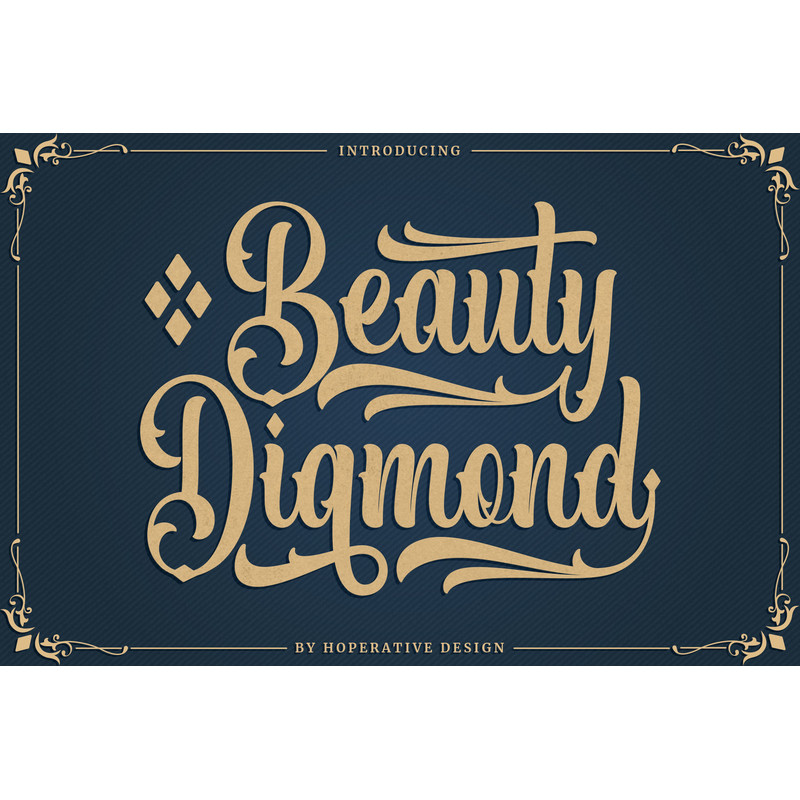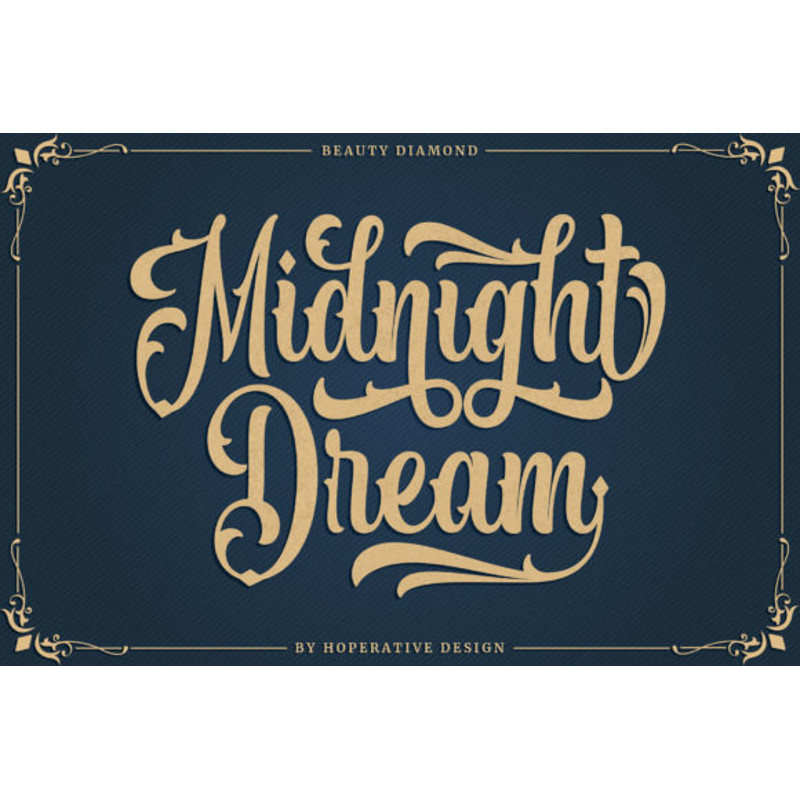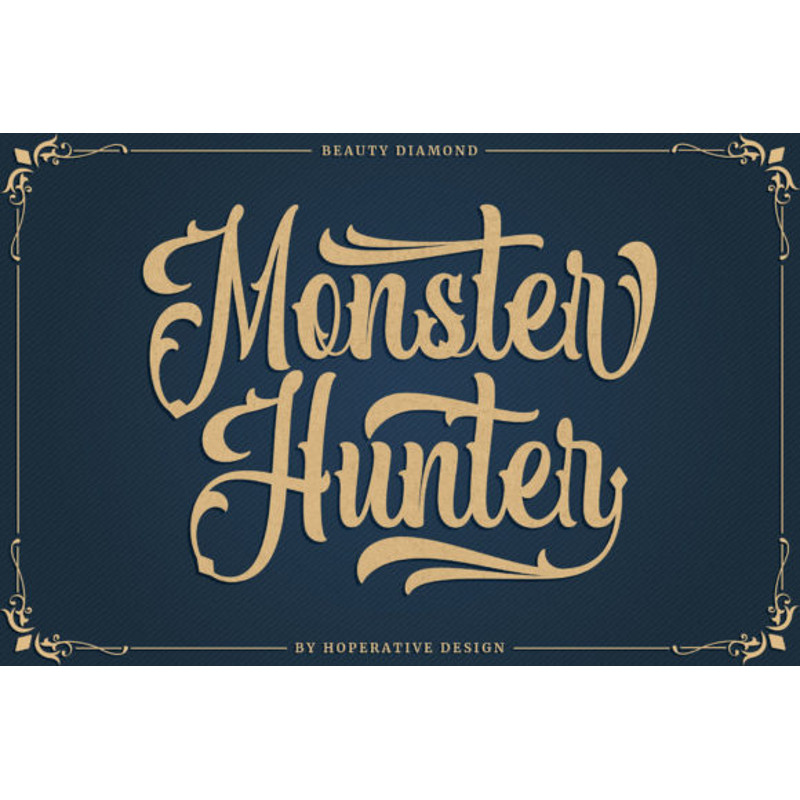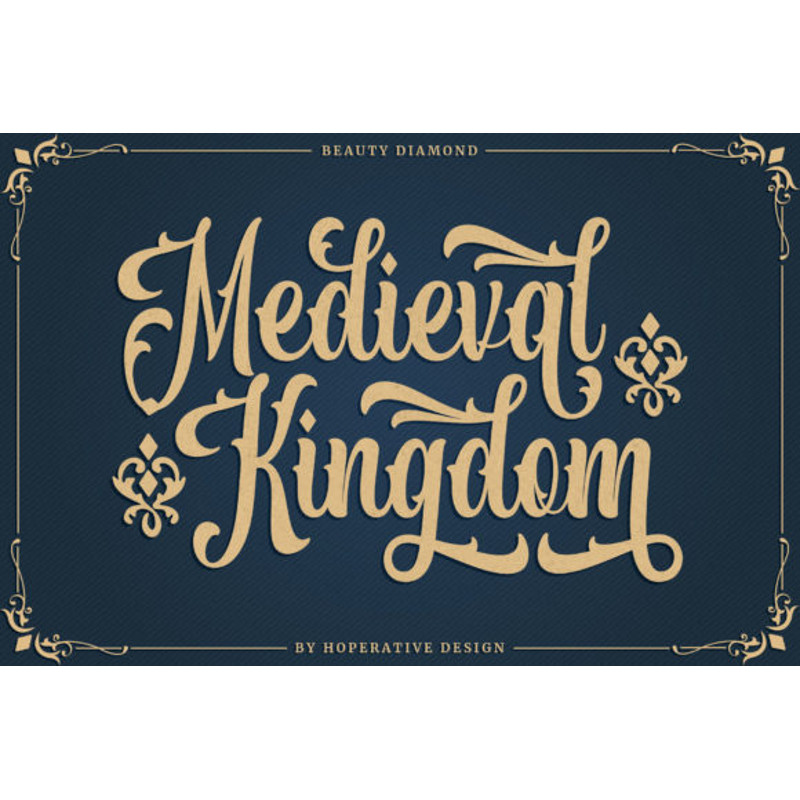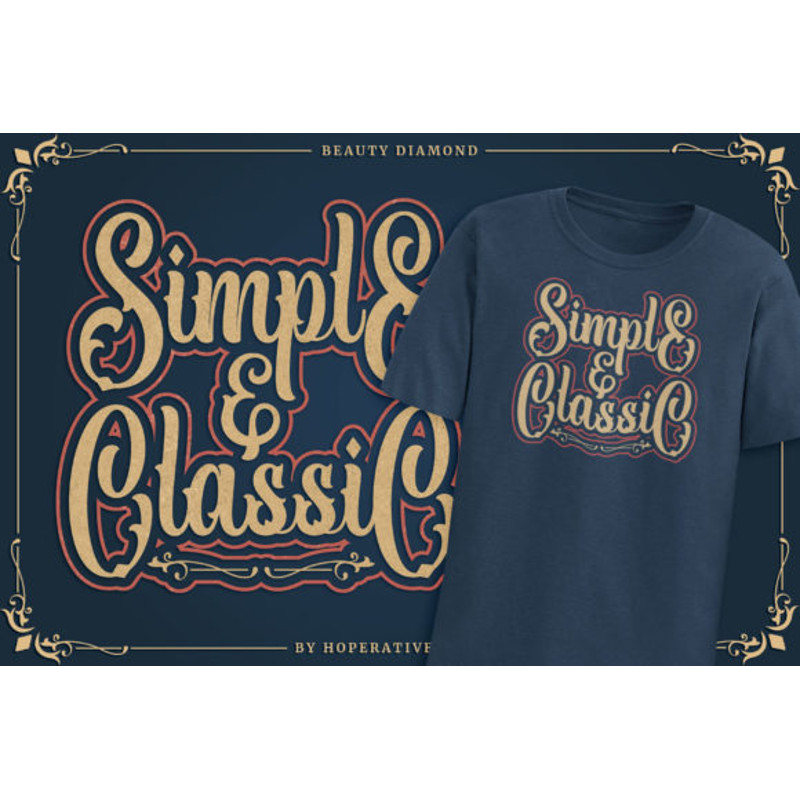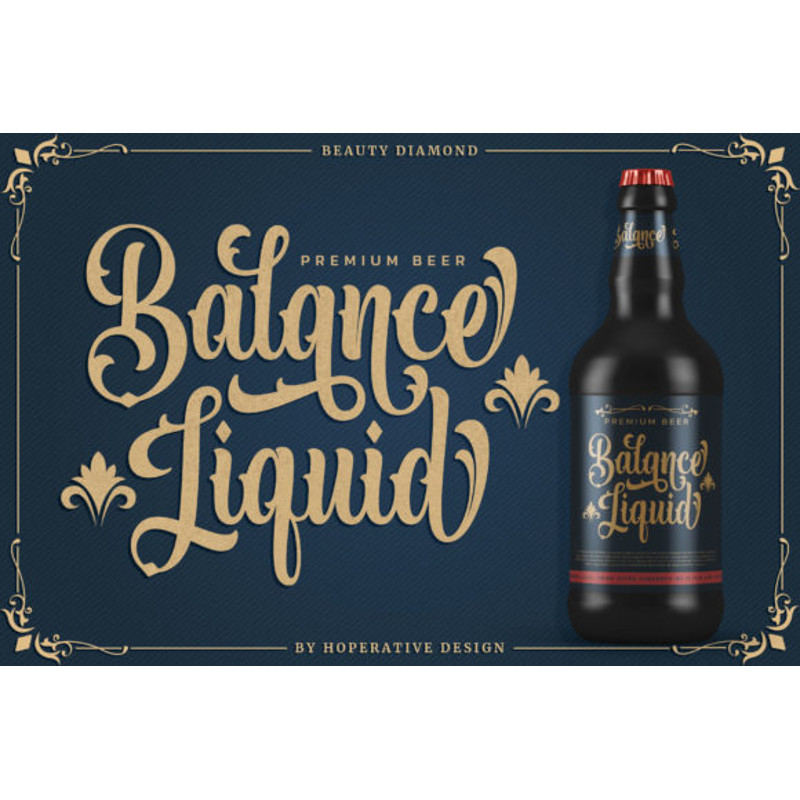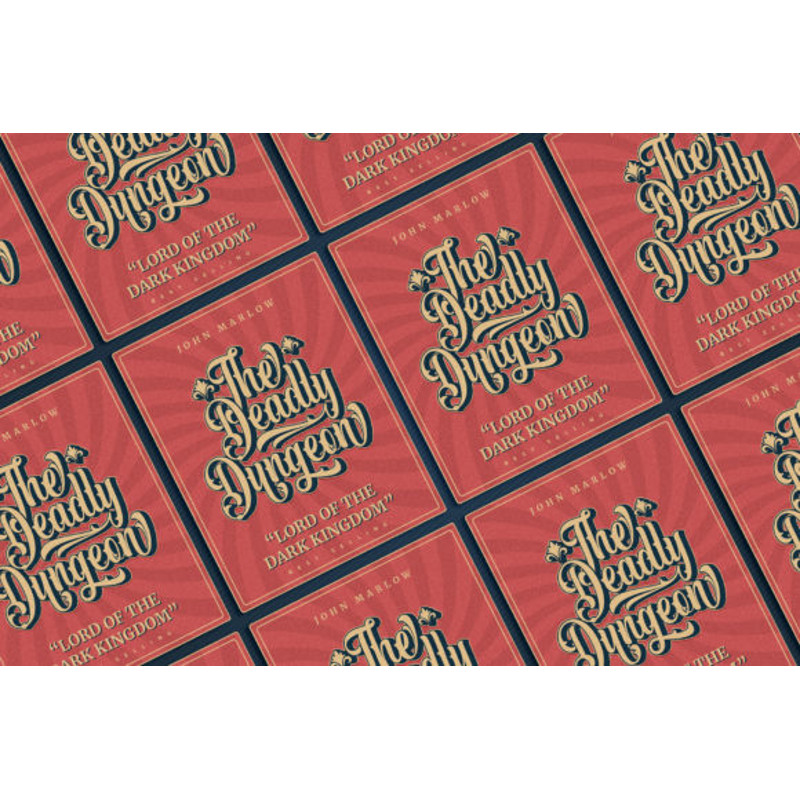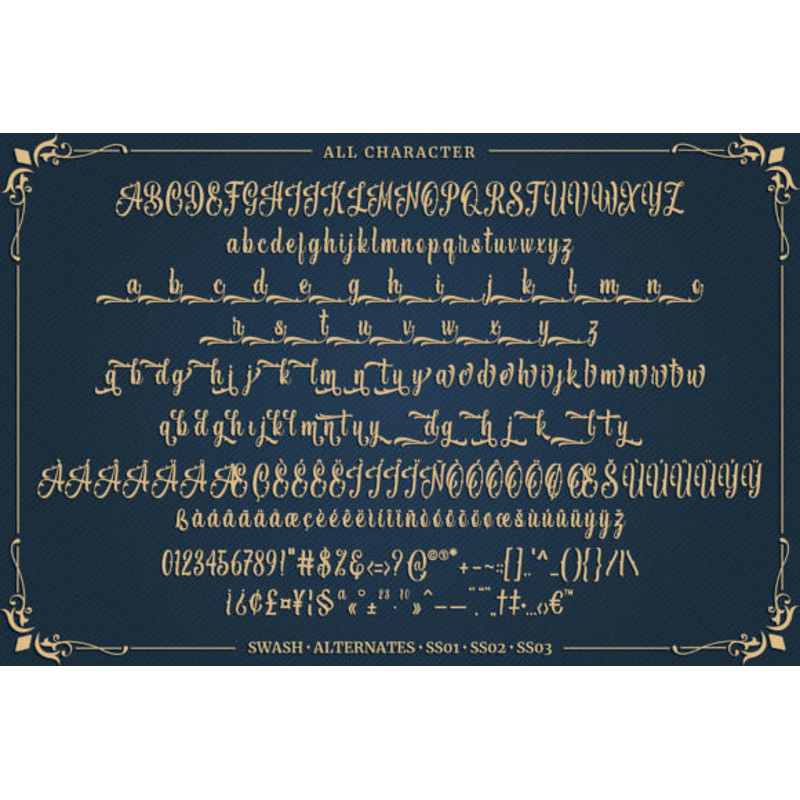
Beauty Diamond Font
Beauty Diamond is a highly detailed and stylish blackletter font, inspired by diamond cards made with lots of swashes and alternates. This font is PUA encoded, which means you can access all of the glyphs and swashes with ease!
Beauty Diamond Font
Beauty Diamond is a highly detailed and stylish blackletter font, inspired by diamond cards made with lots of swashes and alternates. This font is PUA encoded, which means you can access all of the glyphs and swashes with ease!